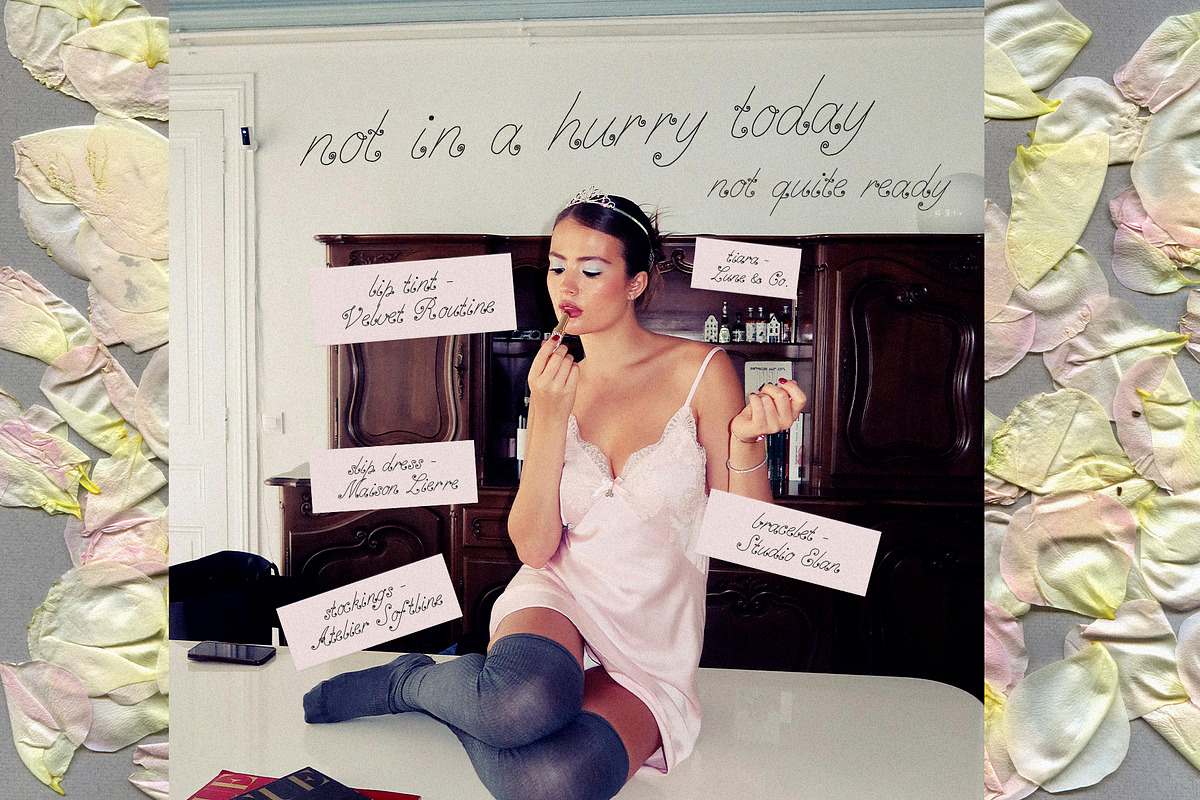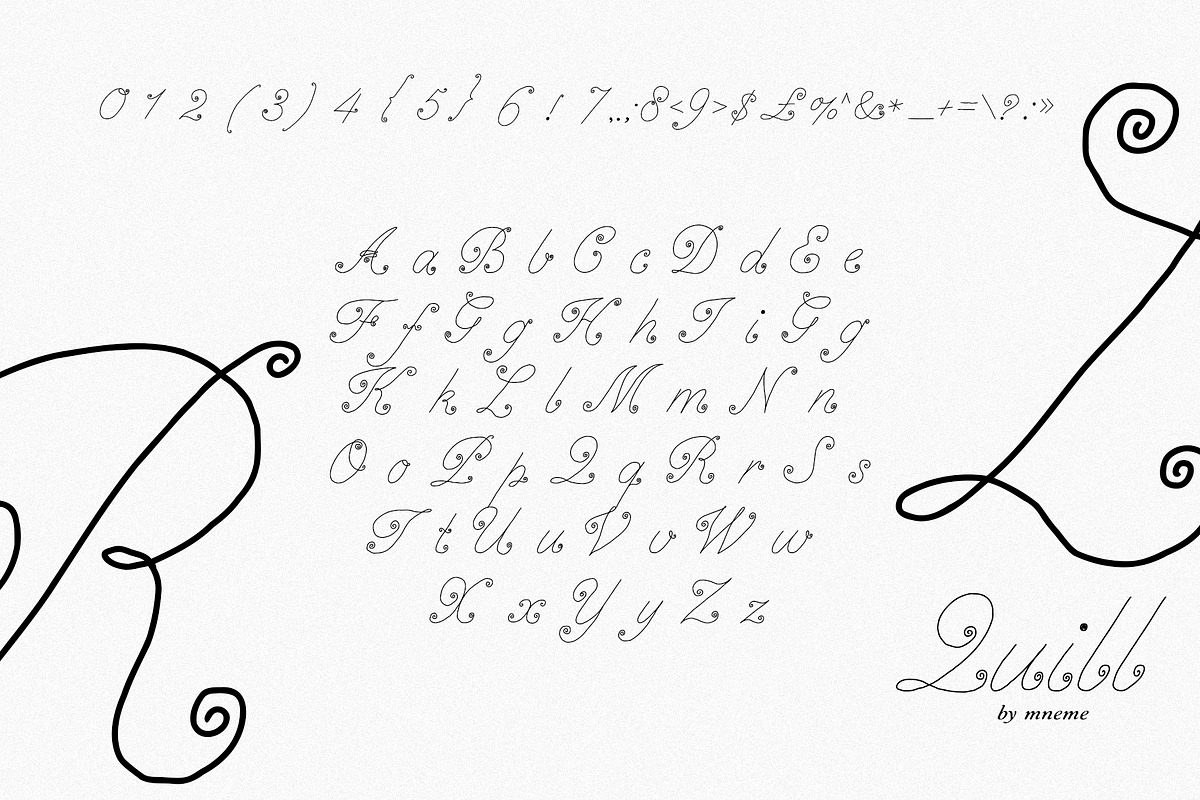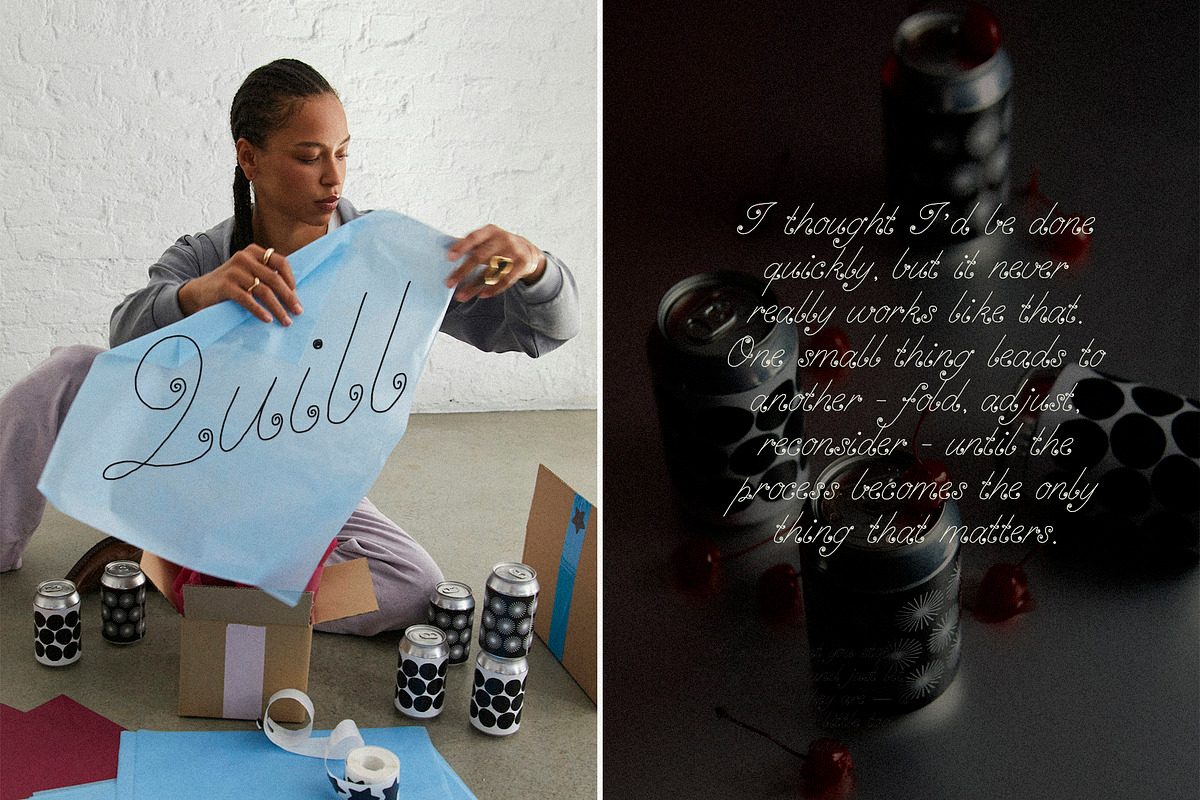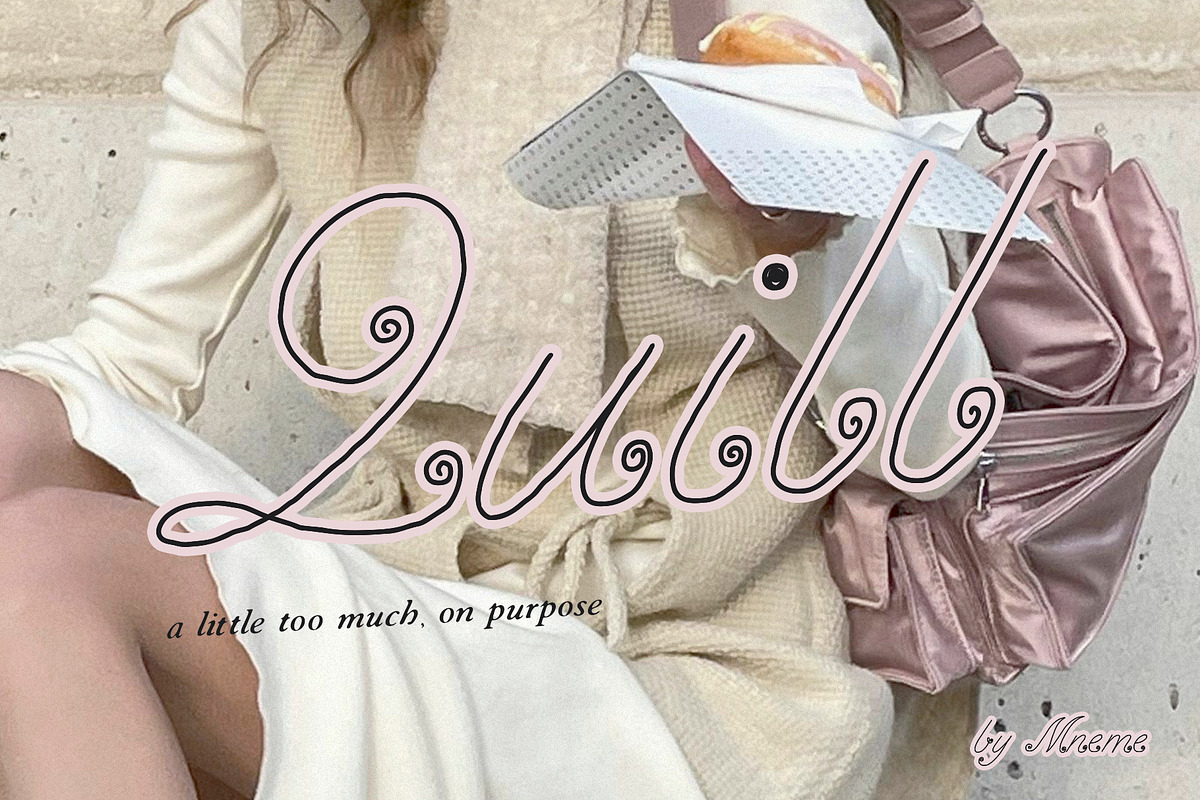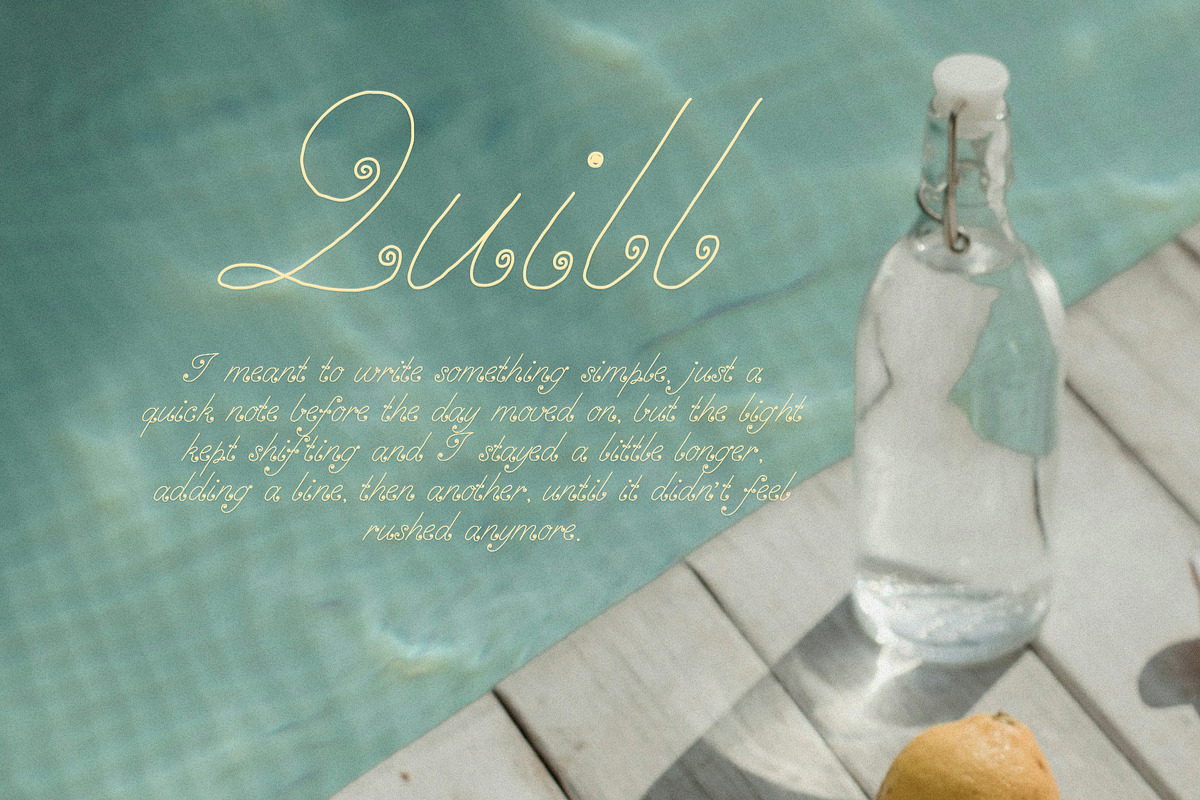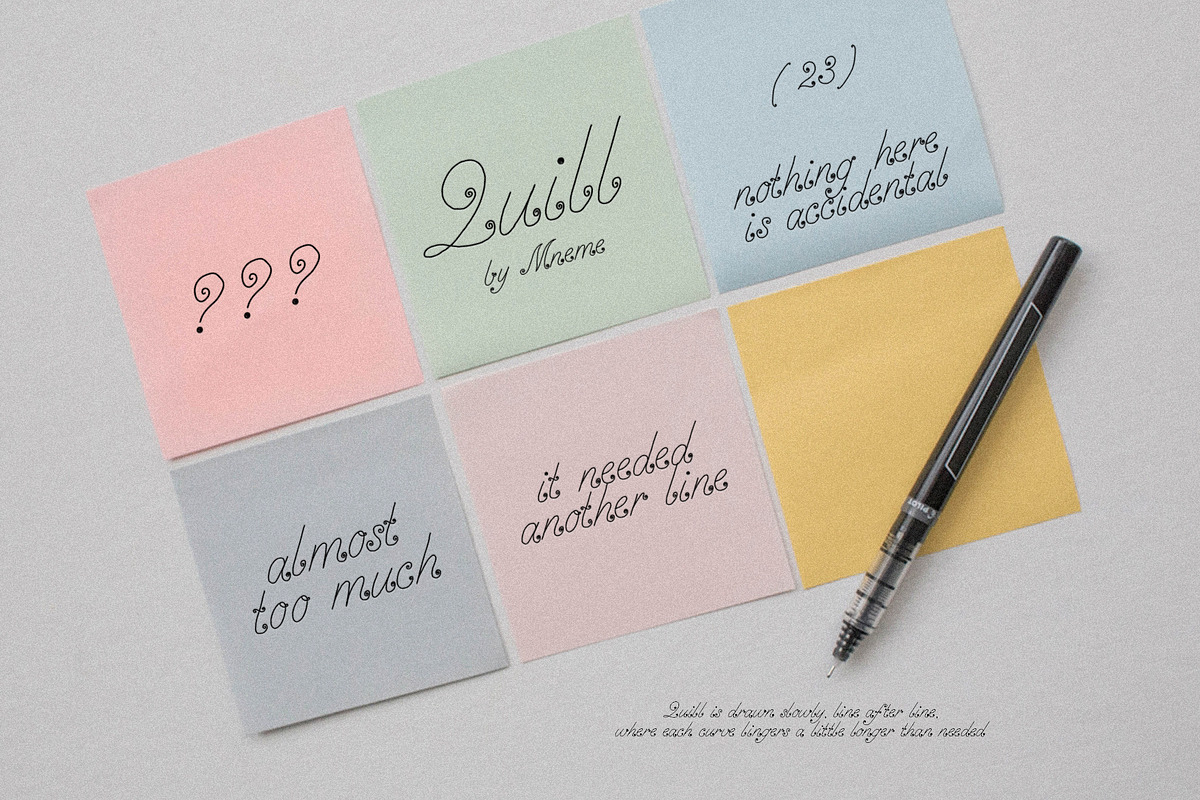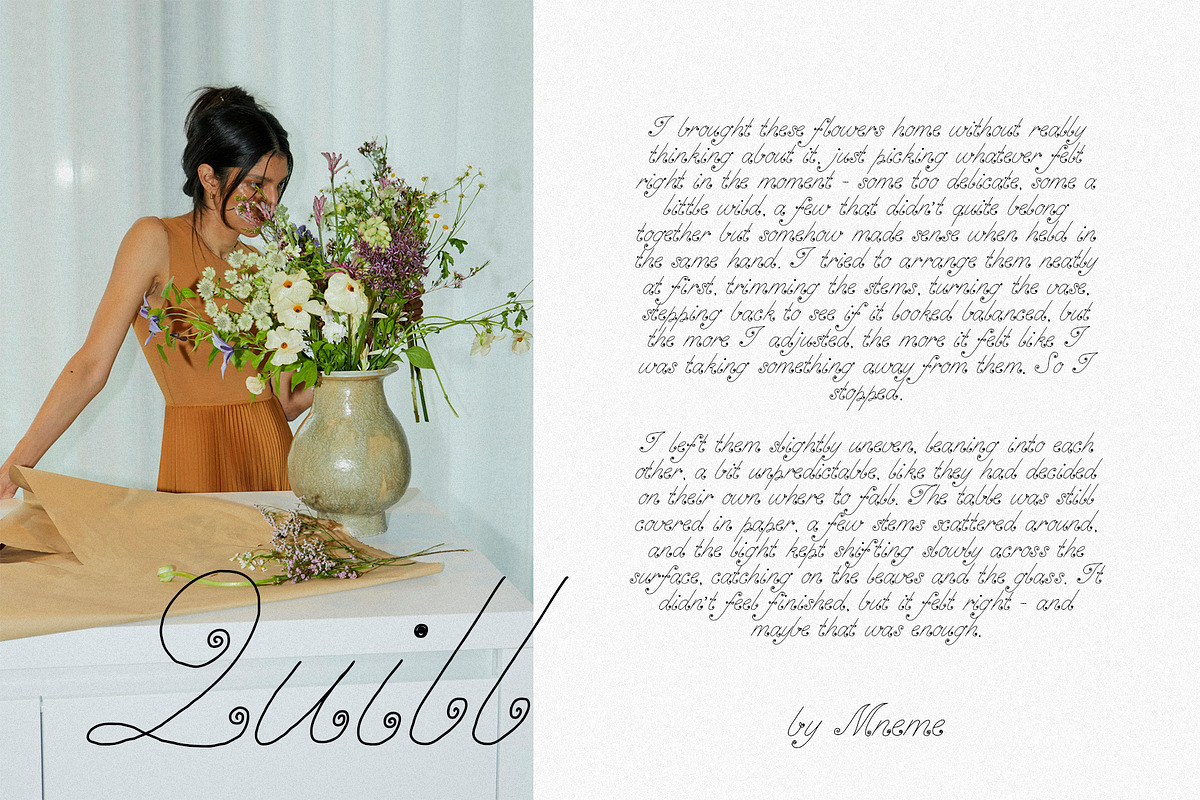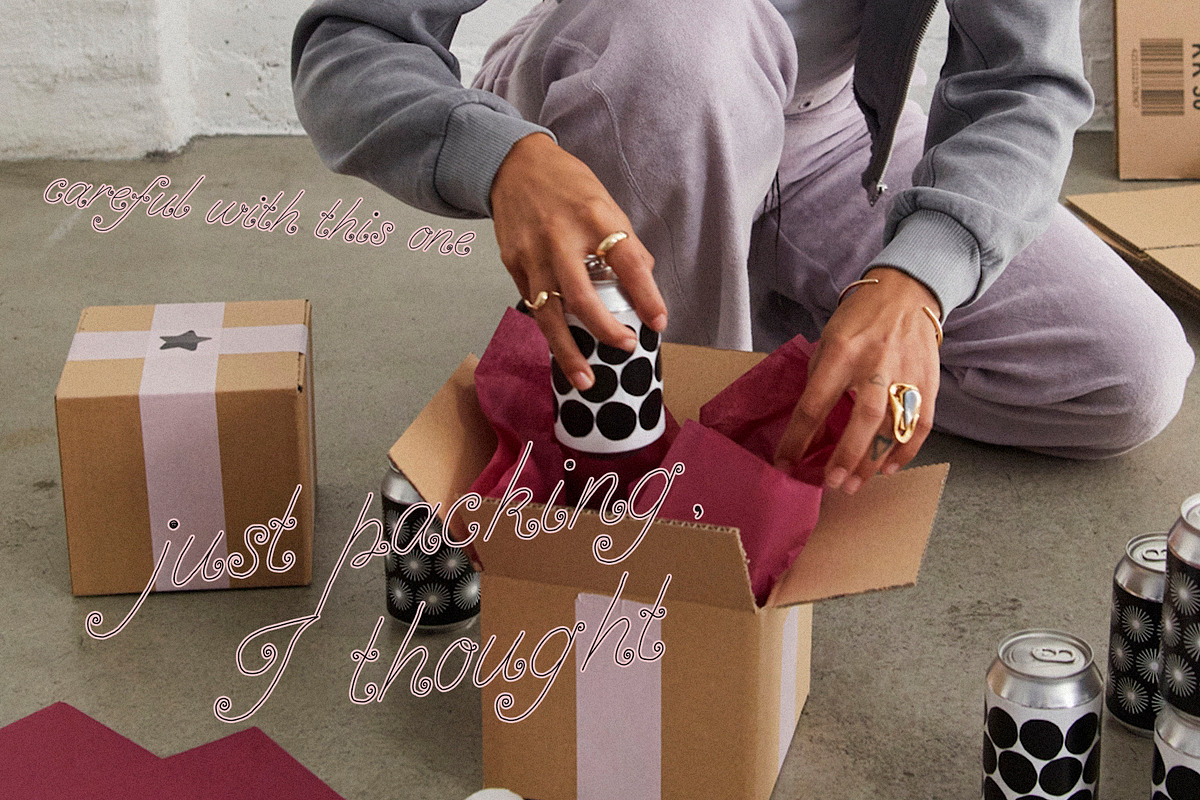
Quill - Elegant Script Font
Quill is a delicate, expressive script font built from slow, intentional lines and softly obsessive details. Each curve feels slightly extended, each flourish just a little more than necessary — creating a rhythm that’s imperfect, personal, and quietly captivating.
This font wasn’t designed to be strict or minimal. Instead, it leans into ornament, repetition, and the natural hesitation of a hand that doesn’t rush.
Quill works beautifully for editorial layouts, branding, invitations, packaging, and any design that calls for something intimate, decorative, and a little undone.
It’s especially suited for:
- fashion and beauty projects
- wedding invitations and stationery
- social media and storytelling layouts
- packaging and lifestyle branding